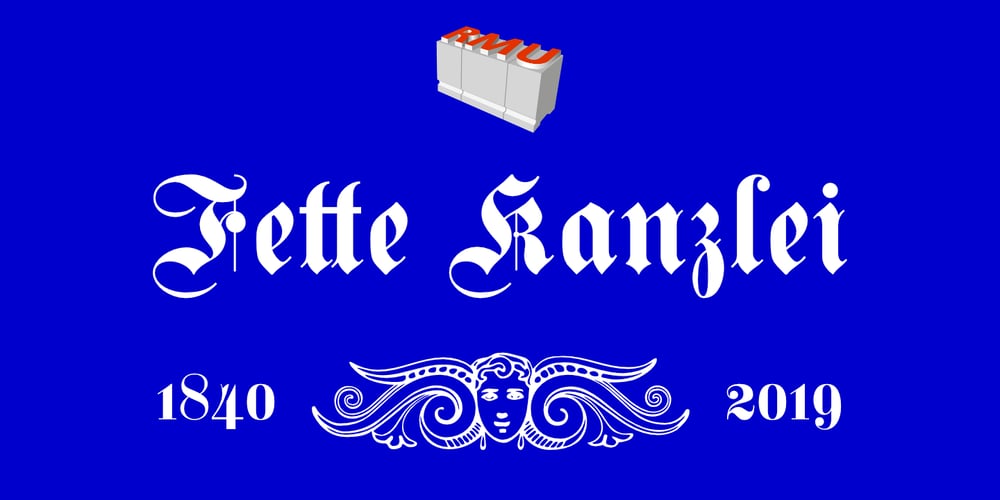
Fette Kanzlei
Fette Kanzlei font
Fette Kanzlei Font Family was designed by Ralph M. Unger and published by RMU. Fette Kanzlei contains 1 styles and family package options. Fette Kanzlei is a beautiful mid-19th century blackletter font with a touch of calligraphy which has been brought back into life again. The long s can be reached by typing alt plus b or by activating the OT feature historical forms. This font also contains oldstyle numerals.